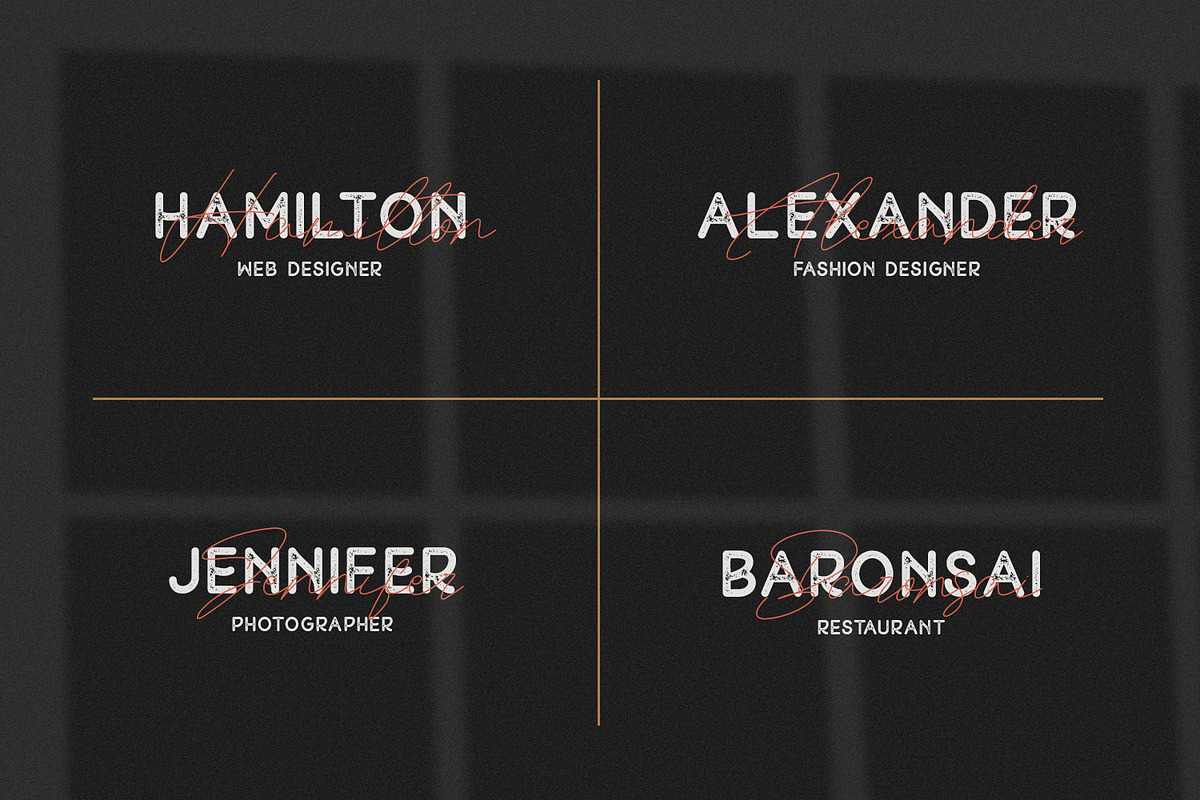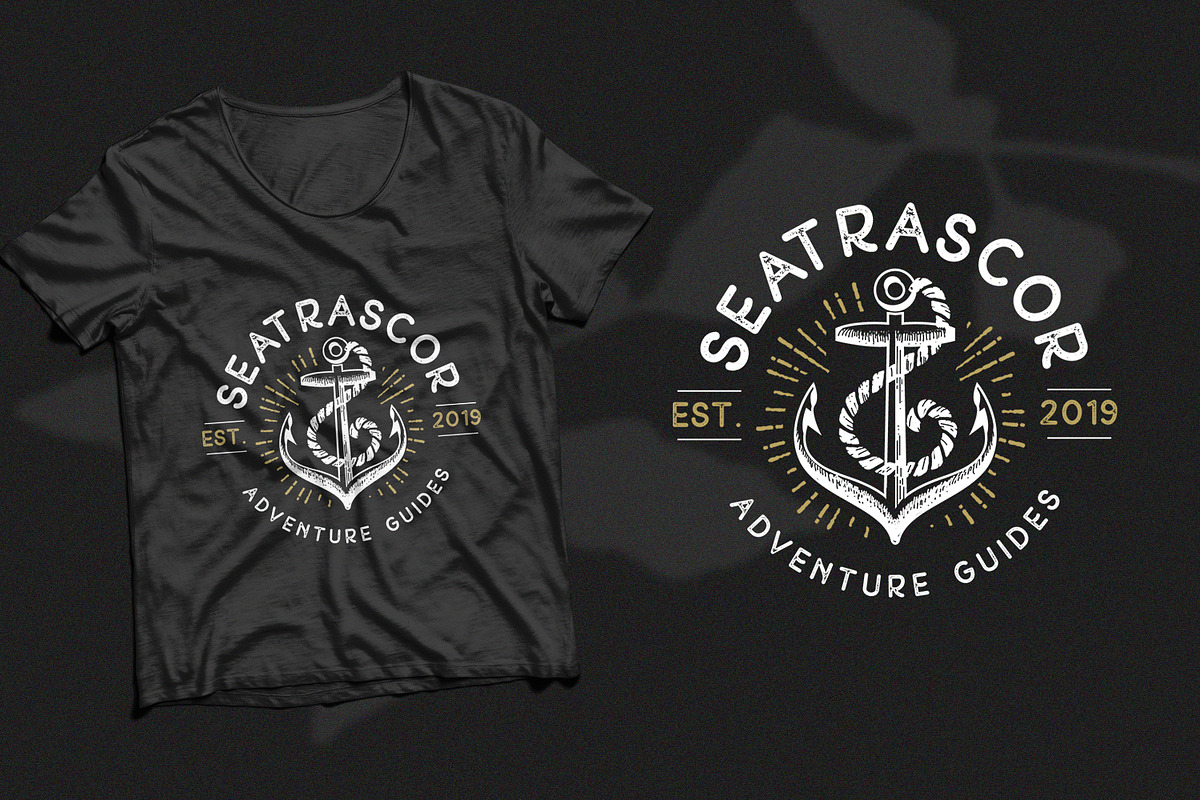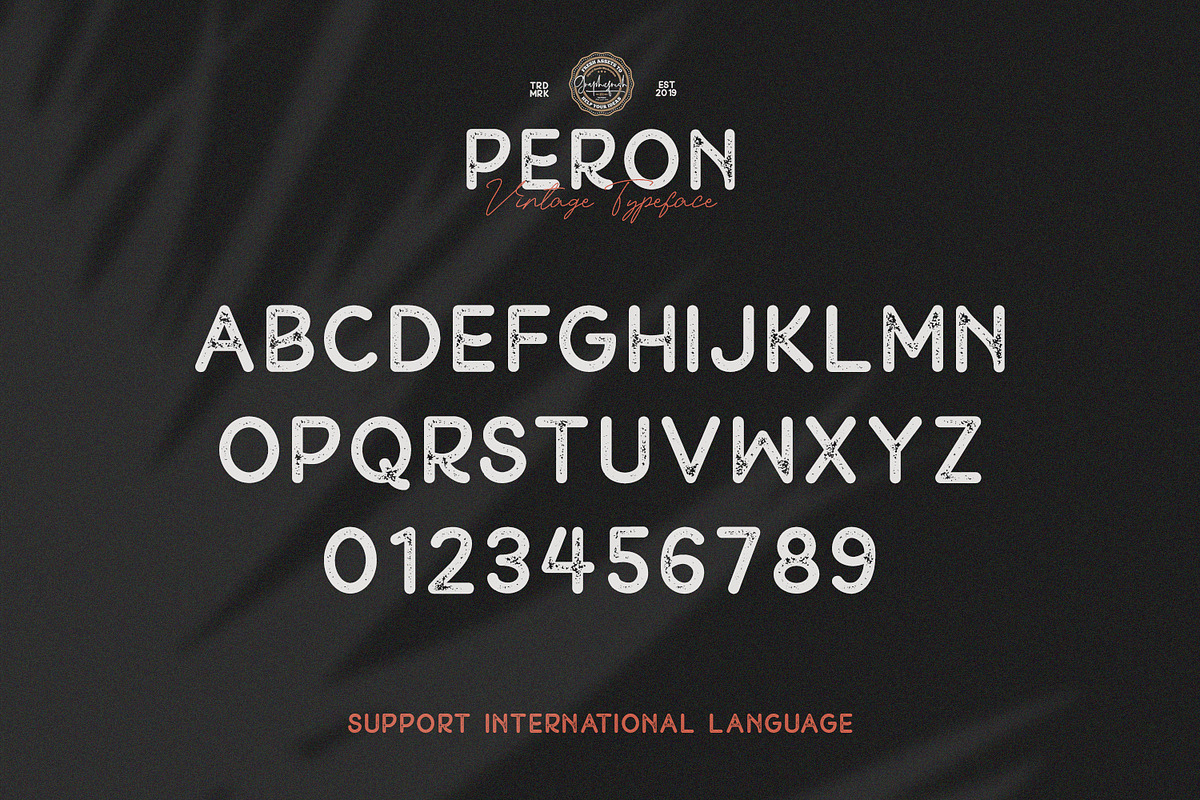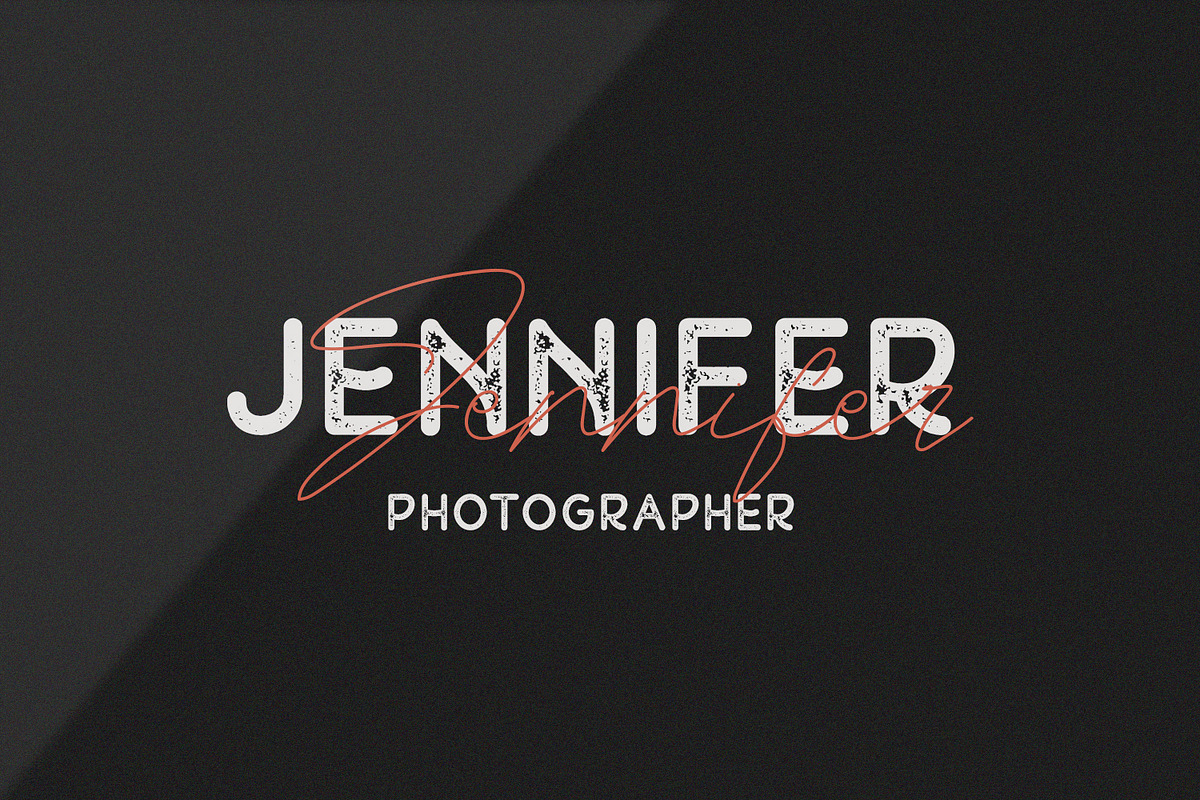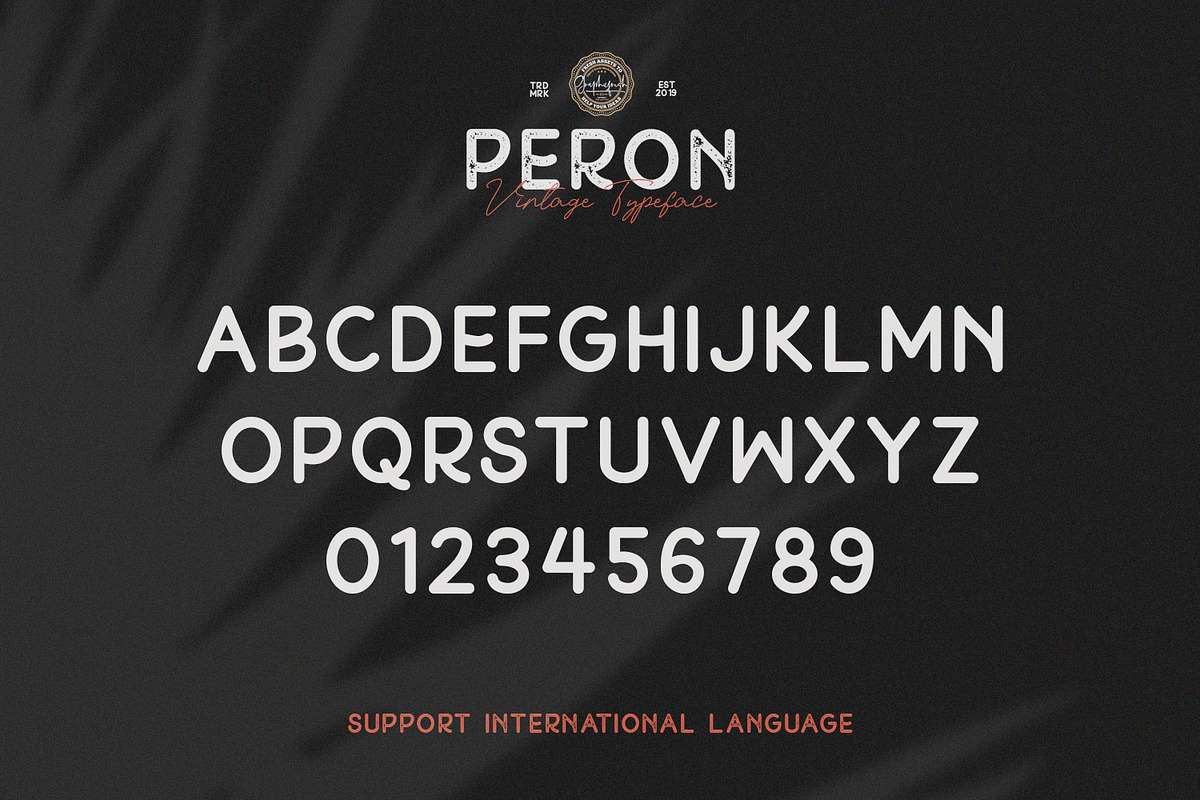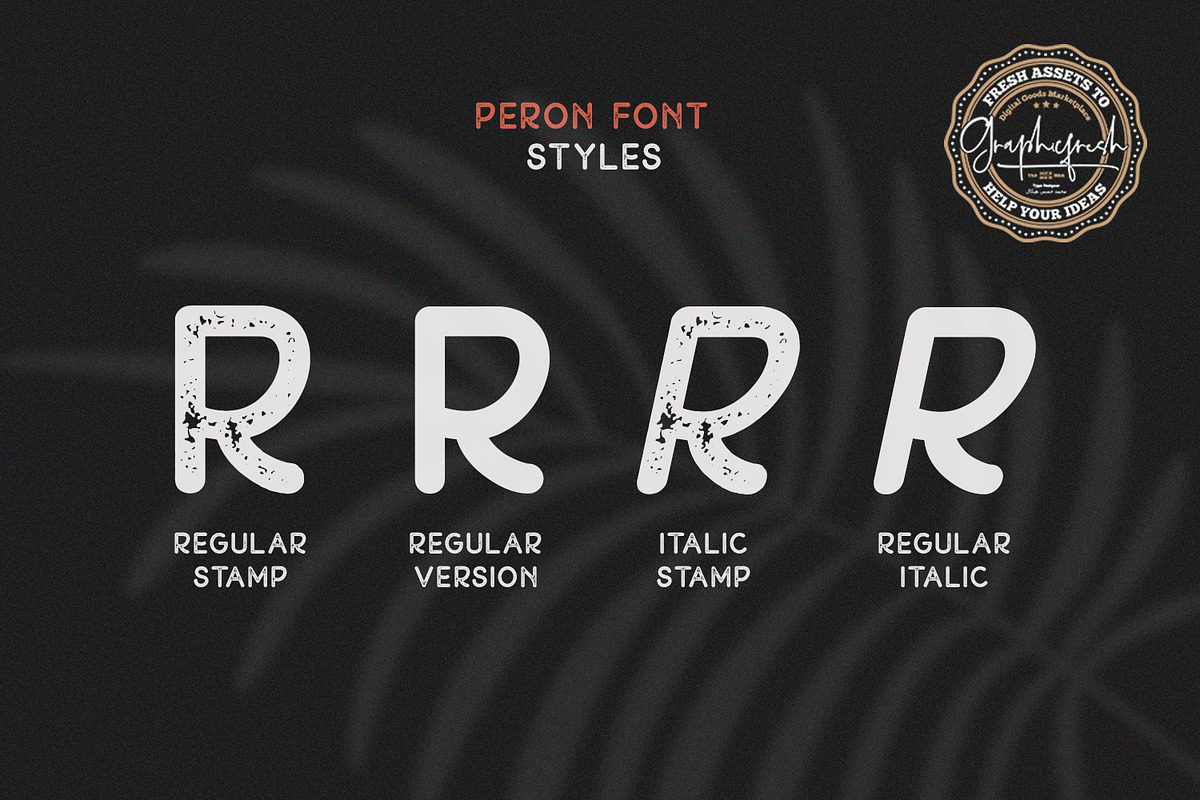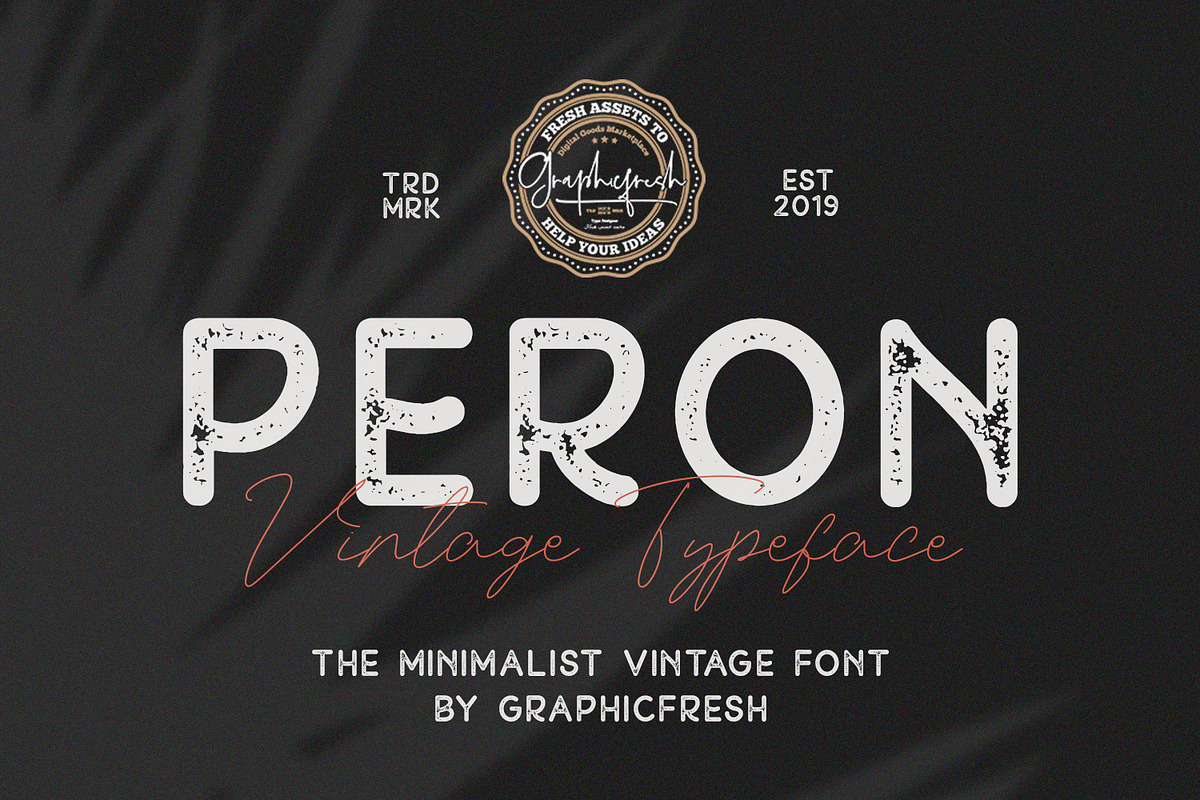
Peron - Modern Vintage | 4 Fonts
Peron is a vintage display family including Regular and Textured versions as well as Italic versions of each. it's perfect for logos, name card, magazine layouts, invitations, headers, or even large-scale artwork. Peron includes 4 OTF & TTF files within the Zip folder.
Punctuation and Number
Multilingual Language